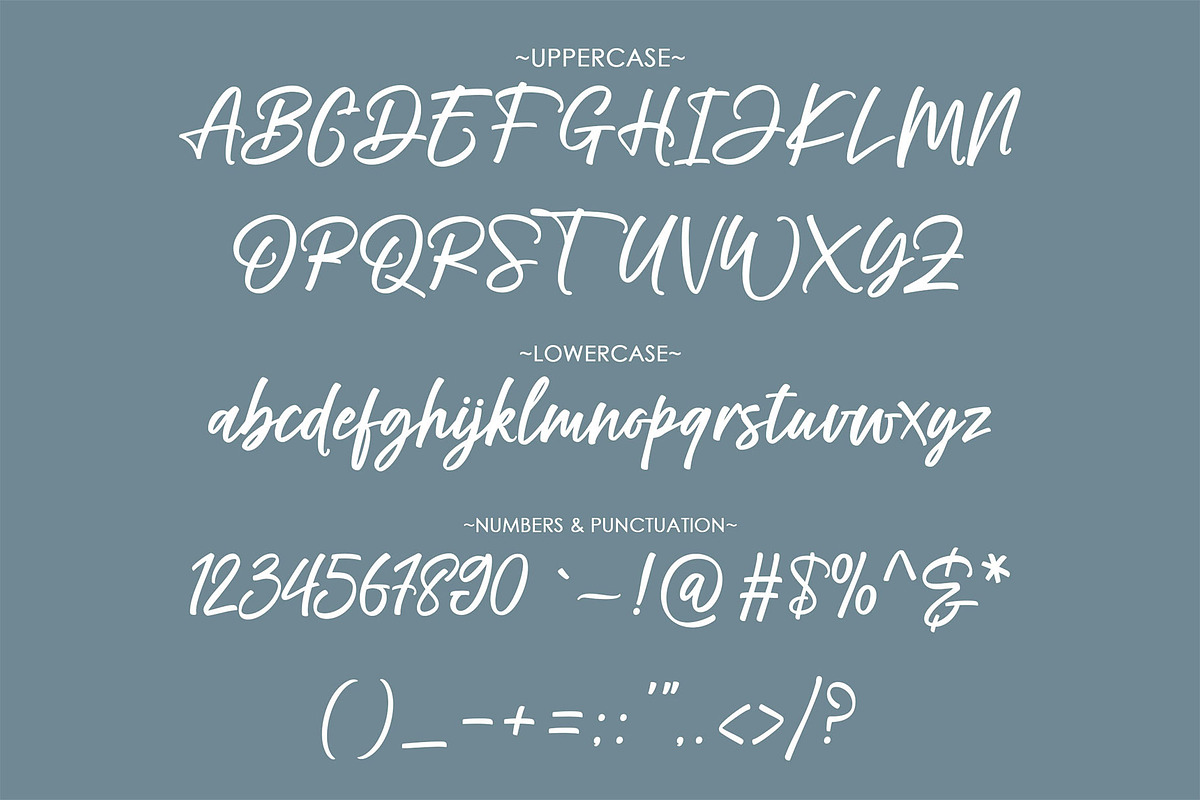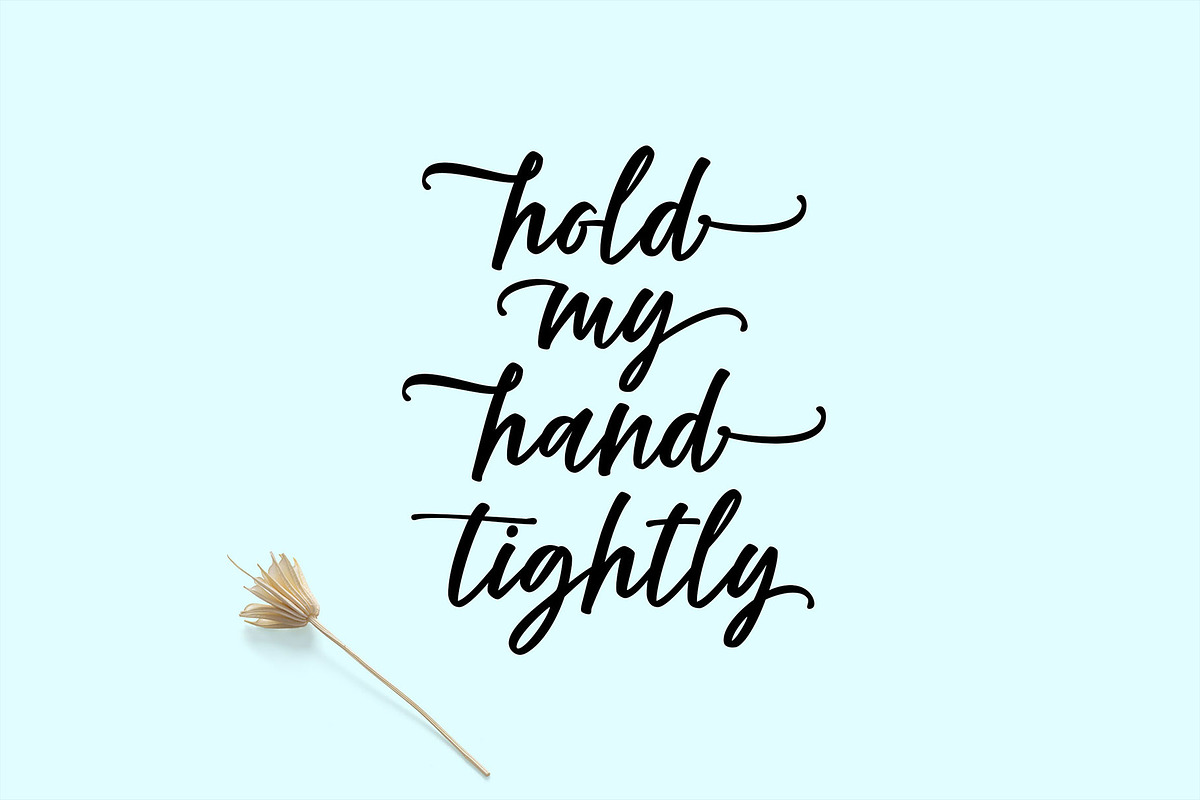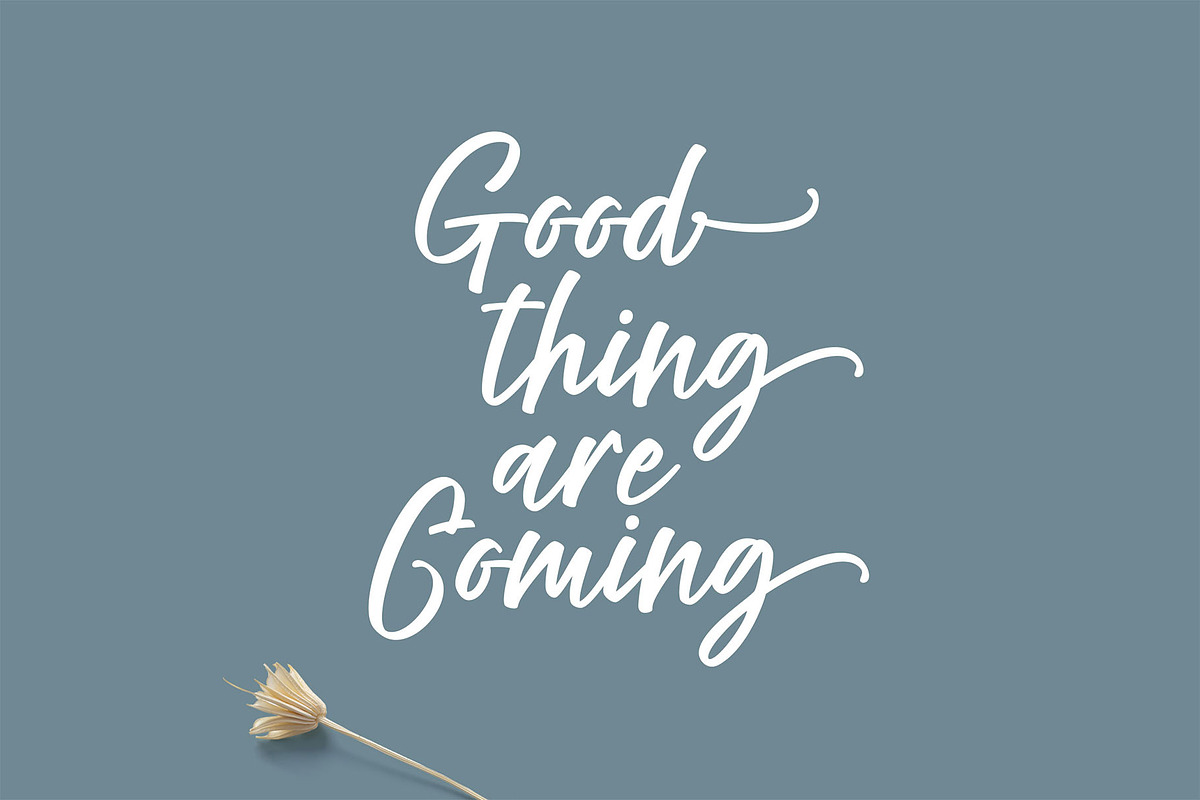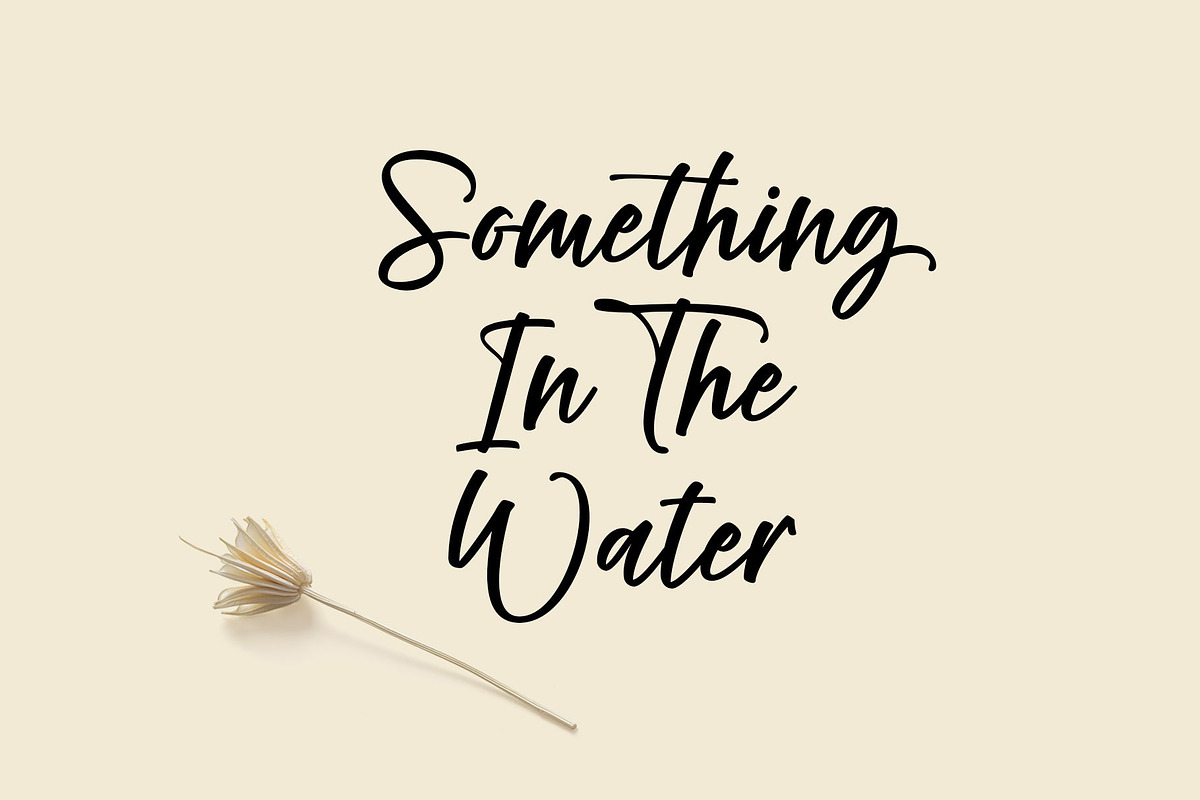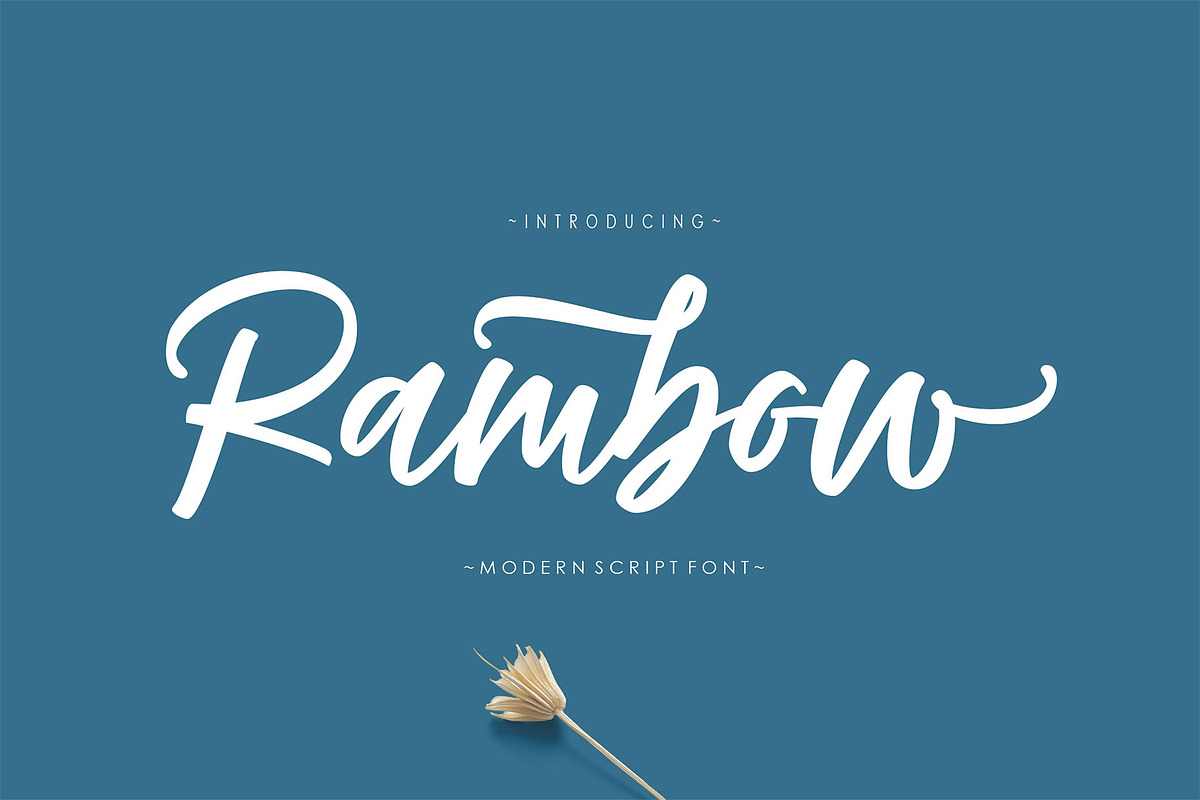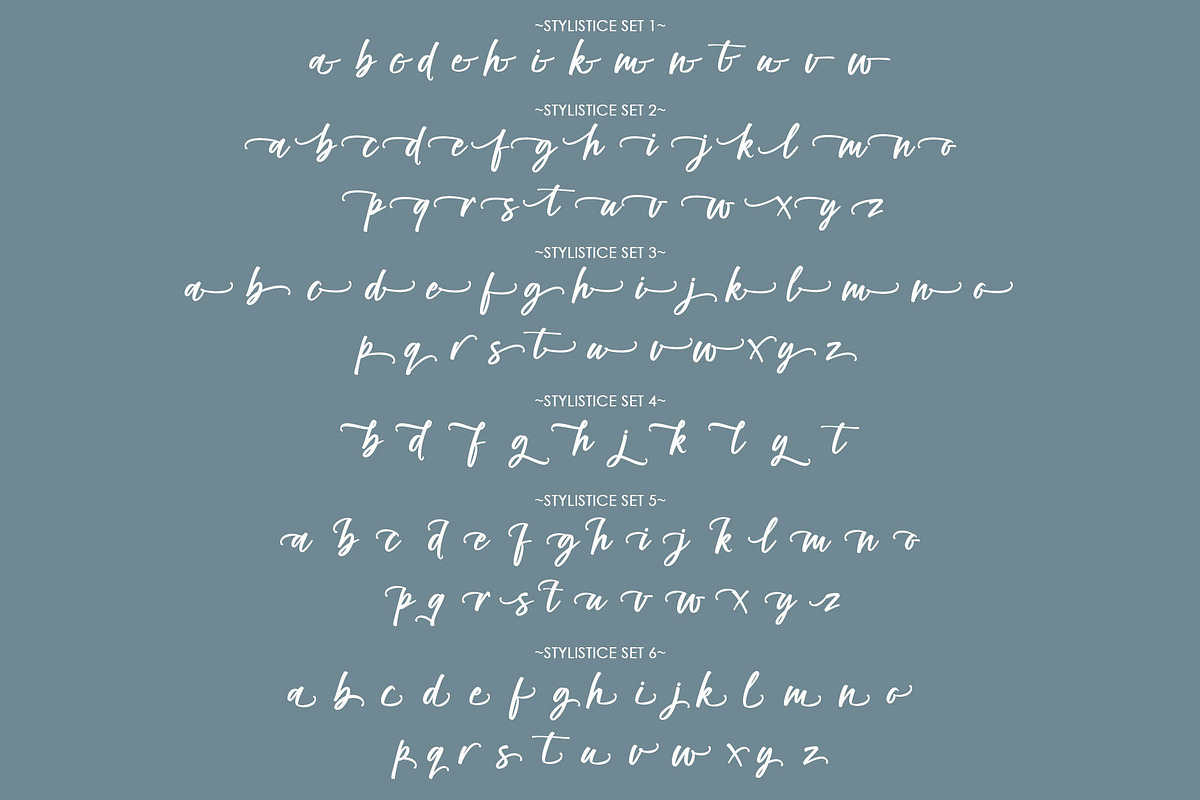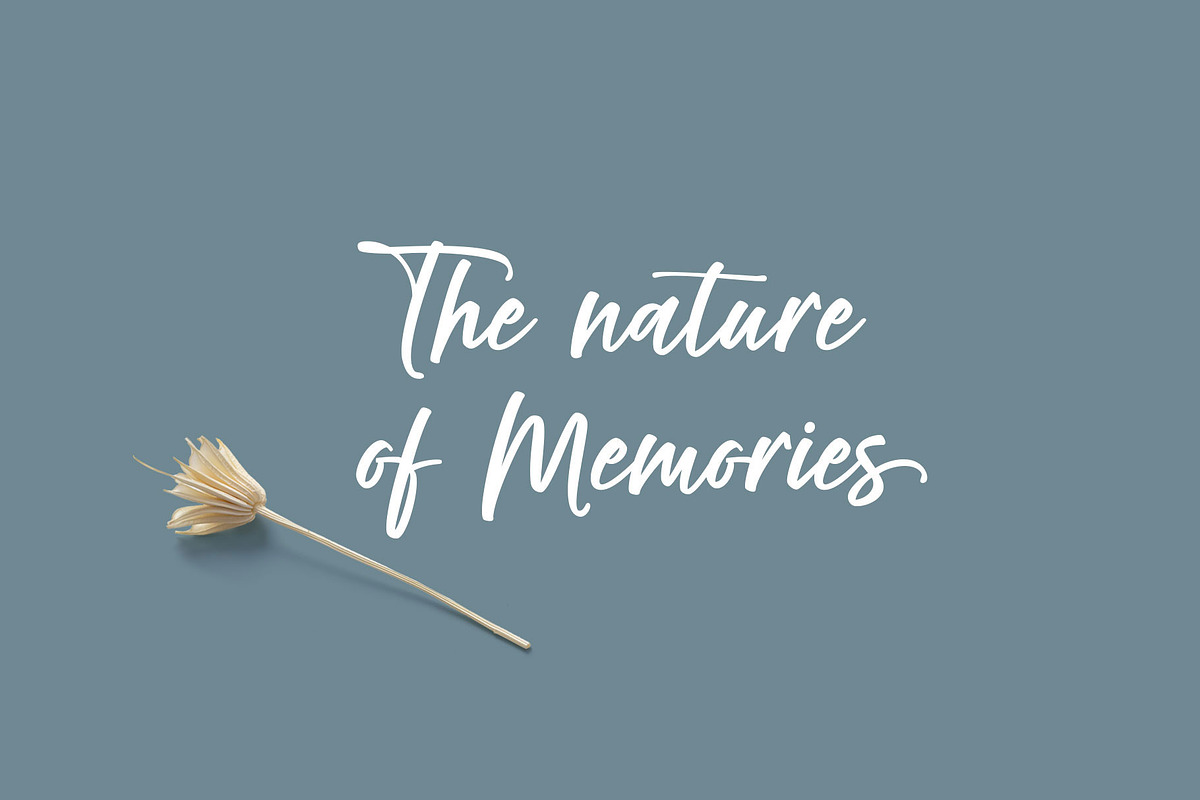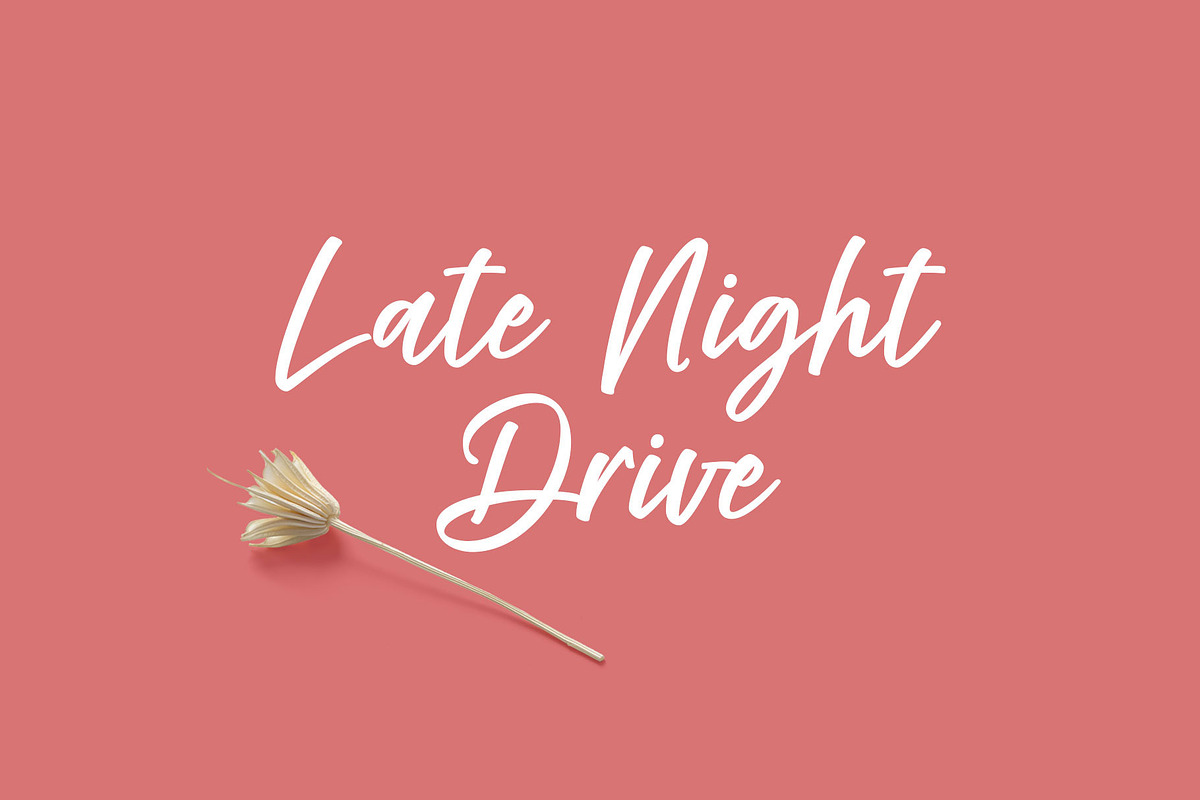
Rambow Script
Rambow is a dazzling script font. This font is neatly crafted and highly detailed. Whatever the topic, this font will be a wonderful asset to your font library, as it has the potential to enhance any creation.
If your latest project needs a bit of an elegant touch, it's time to introduce Chubby Girl to your font library. This stylish typeface features OpenType features such as ligatures, stylistic alternatives, style sets.